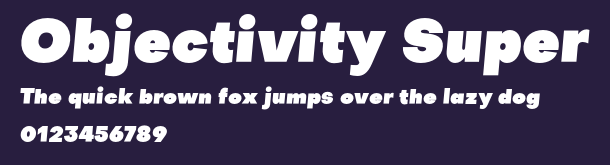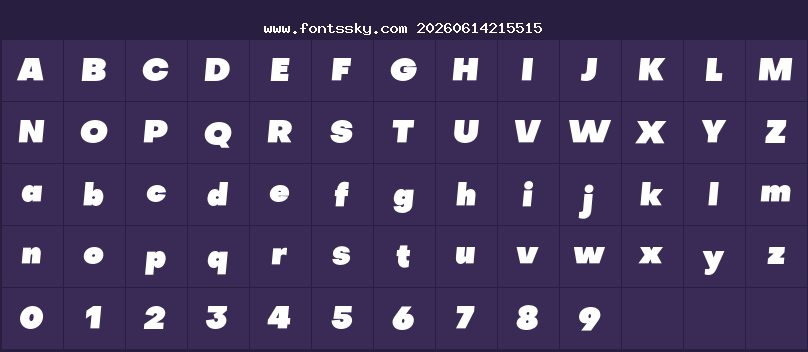
• Font Name: Objectivity Super
• Designer: Alexander Slobzheninov
About Objectivity Super.otf
Objectivity Super.otf is a modern, elegant sans-serif font designed for ultimate readability and visual harmony. Perfect for branding, headlines, web design, and print materials.